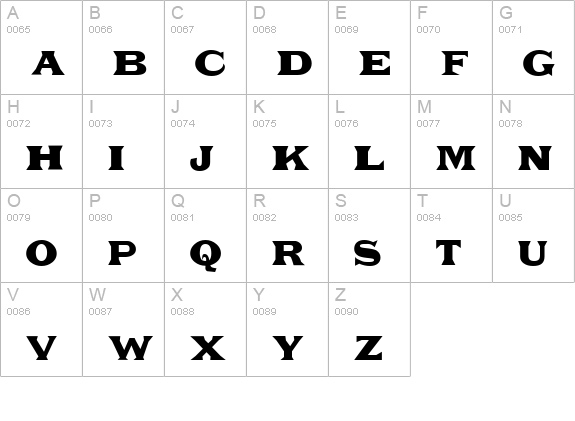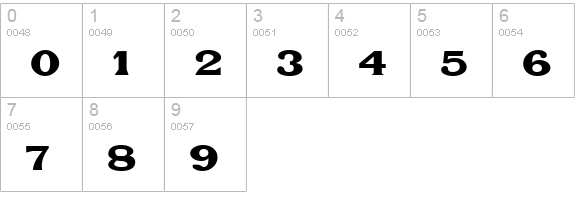
Fat Legs Font Details
Introducing Fat Legs font, a bold and unique typeface that is sure to make a statement in your designs. This playful and eye-catching font features thick, chunky letters with a quirky twist, perfect for adding a touch of personality to your projects. What sets Fat Legs font apart is its free-spirited and lively vibe, making it ideal for anything from posters and flyers to branding and packaging. Whether you're looking to add a touch of whimsy or make a bold statement, Fat Legs font has you covered. Best of all, Fat Legs font is freely available to download at FontsMarket.com, so you can start using it in your designs right away. Don't miss out on this fun and versatile font that is sure to elevate your creative projects to the next level.